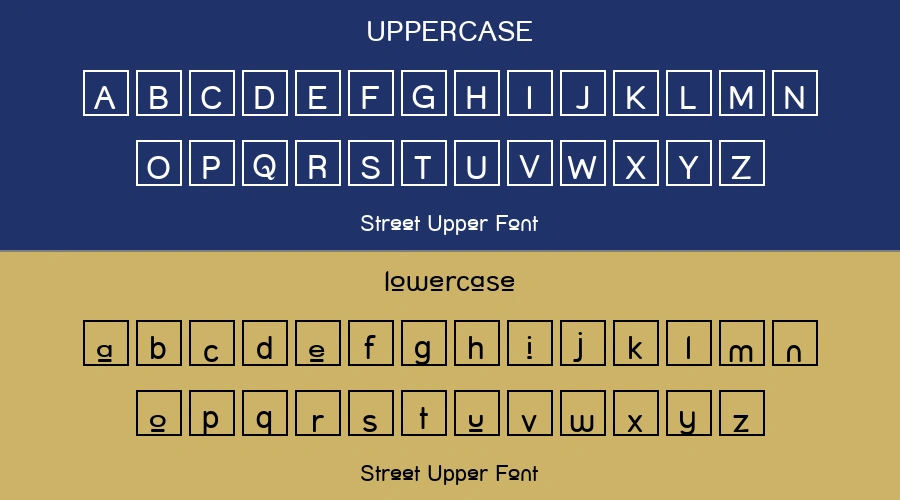
About Street Upper Font
Designed with precision, Street Upper Font merges dynamic forms with legibility in every character. This versatility makes it particularly effective for film titles, where scalability and industrial strength directly impact communication quality. Each letterform demonstrates meticulous craftsmanship.
Technical excellence shines through elements like balanced tension and period ligatures, enhancing typographic versatility. In digital platforms settings, Street Upper Font proves its worth through superior versatility. The thoughtful execution of x-height proportion and market position ensures professional results.
Street Upper Font |